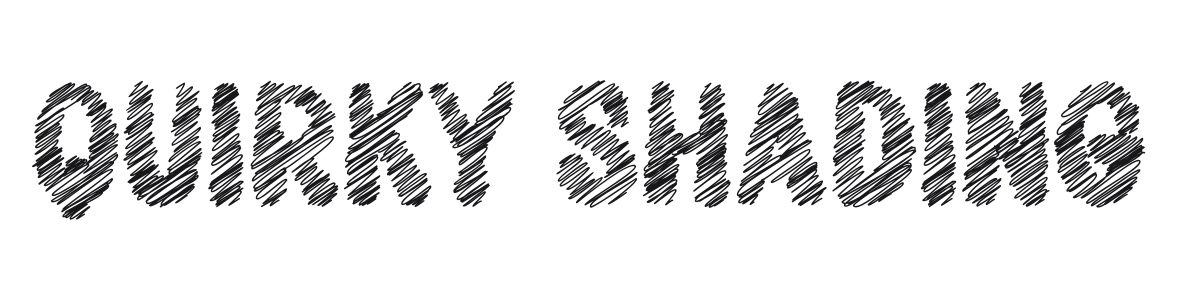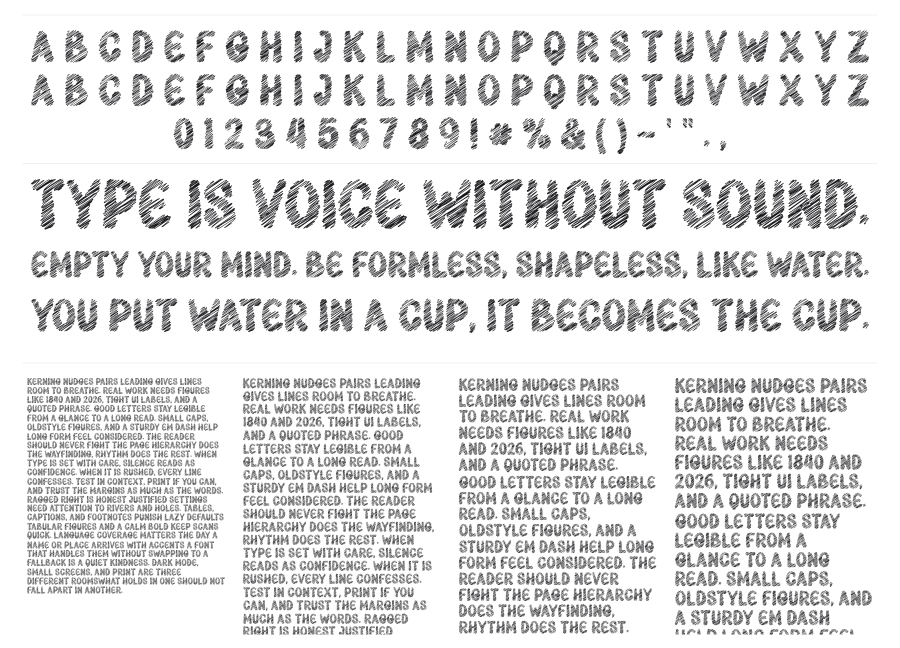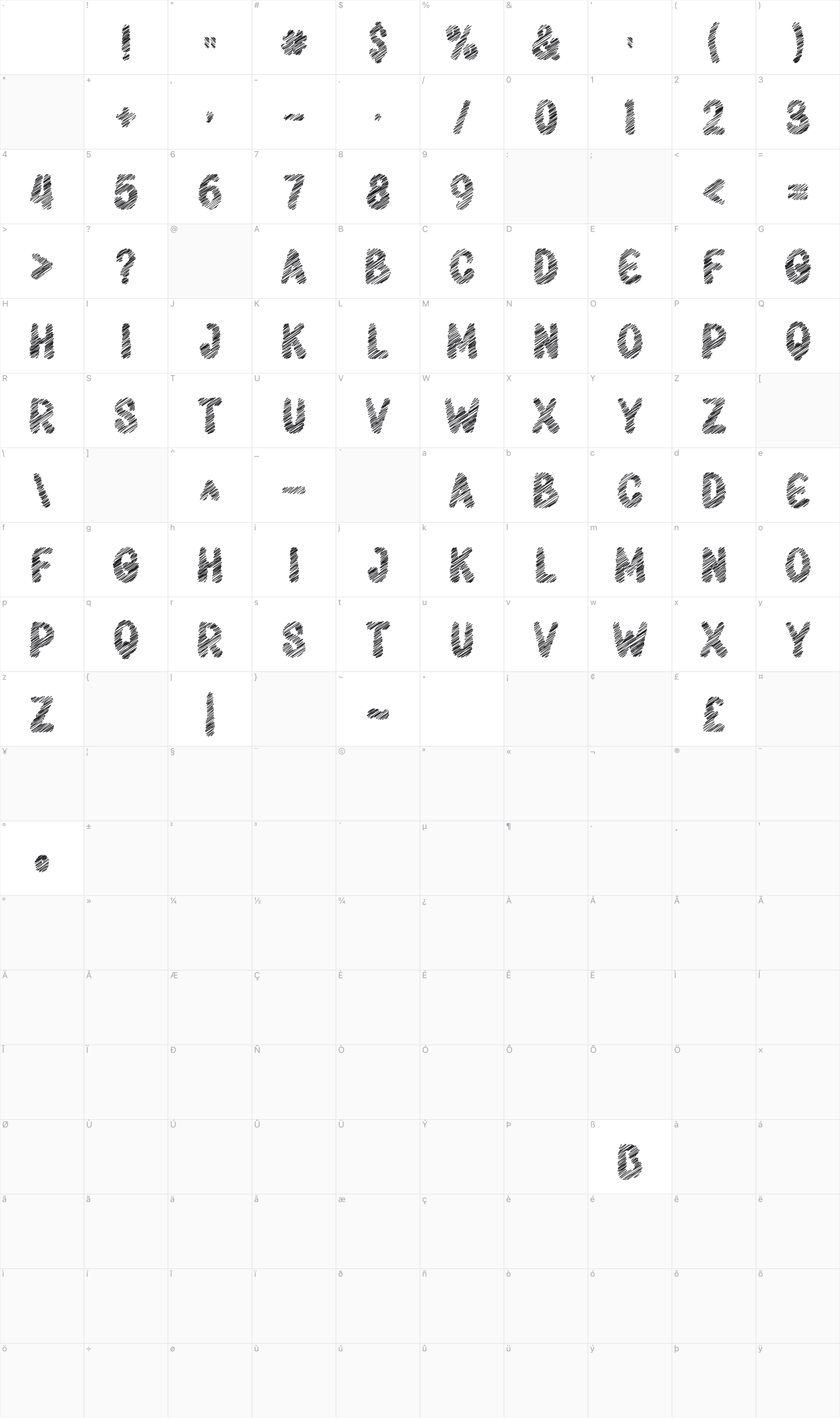
Quirky Shading
Quirky Shading is a bold display font with every character filled by dense diagonal scribble lines, as if sketched repeatedly with a pencil or marker. The underlying shapes are wide and chunky, but the hatching texture is what defines its personality — raw, hand-crafted, and deliberately imperfect. It works at large sizes where the scribble detail can breathe.